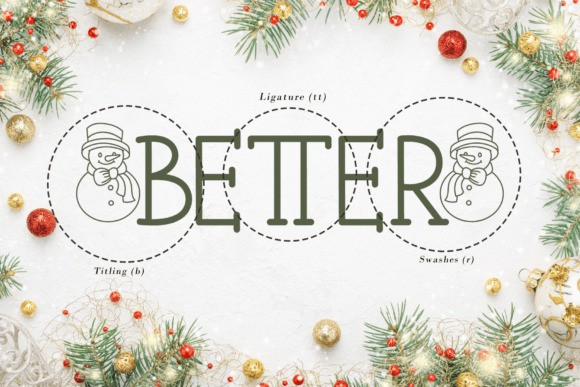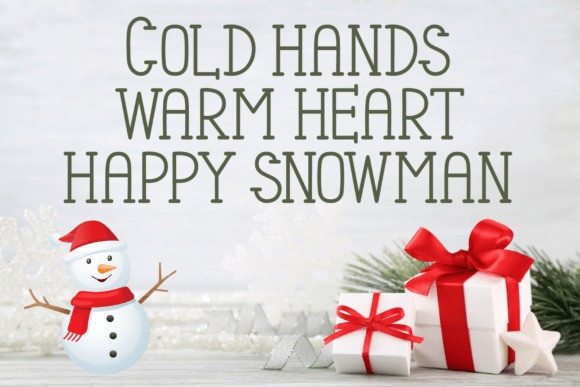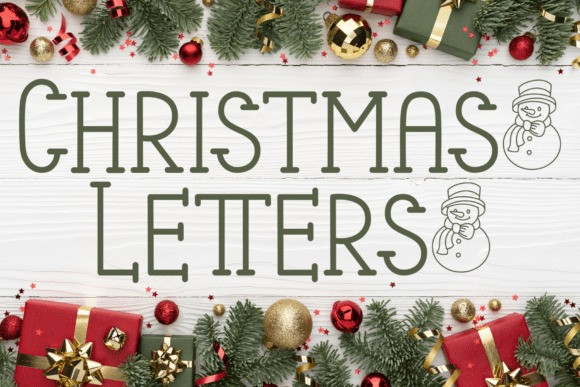
Christmas Letters Font
Christmas Letters Font Designed with the warmth of a handwritten note, Christmas Letter captures the joyful essence of the holiday season. Its charming handwritten style is elegant and fun, perfect for creating greeting cards, mugs, or digital crafts. Its handcrafted feel makes every design more meaningful. Let your words glow with Christmas cheer through this sweet and timeless font.